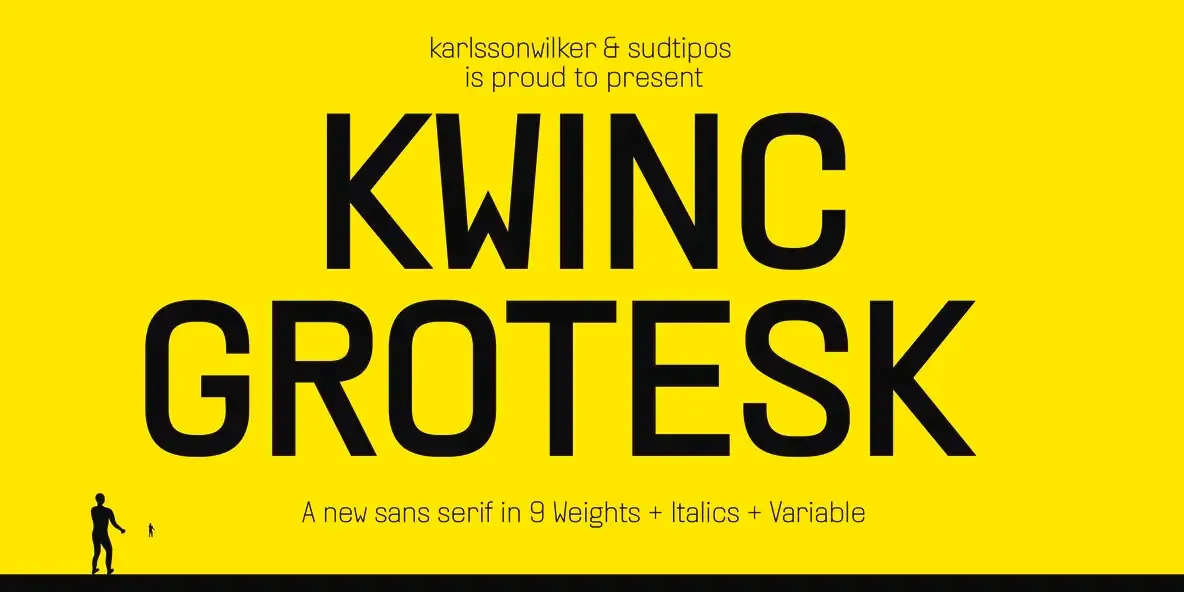
KWINC Grotesk Font
KWINC Grotesk — Bold, Dimensional, and Witty
KWINC Grotesk marks the first collaboration between Karlssonwilker, the acclaimed New York design studio, and Sudtipos. Founded in 2000 by Hjalti Karlsson and Jan Wilker, Karlssonwilker is known for a signature mix of narrative, humor, and cultural insight across a wide range of design projects. This release brings that perspective into a contemporary grotesk with a clear point of view and a lively typographic voice.
Members of the Alliance Graphique Internationale, Hjalti and Jan have long shared creative conversations with Ale Paul of Sudtipos. Those conversations now take form in a typeface inspired by vernacular dimensional letters found in U.S. home improvement stores. KWINC Grotesk pairs playful energy with practical function. The uppercase feels striking and expressive, while the lowercase brings an old-style character supported by a multitude of typographic features.
With 9 weights, accompanying italics, and a variable font option, KWINC Grotesk stays distinct across layouts and scales. It fits projects that move between culture and commerce, where tone matters as much as clarity. Set it loud for headlines or let it carry longer text with quiet personality and control. It brings depth and character without losing its working rhythm.